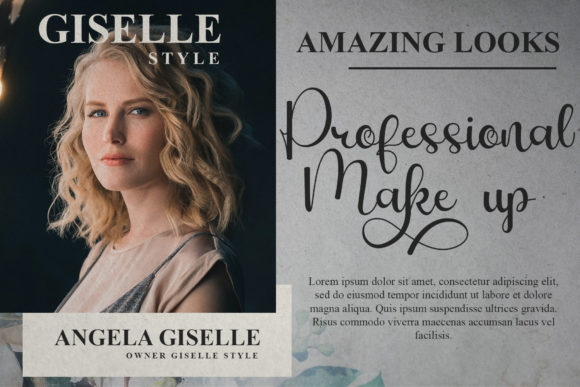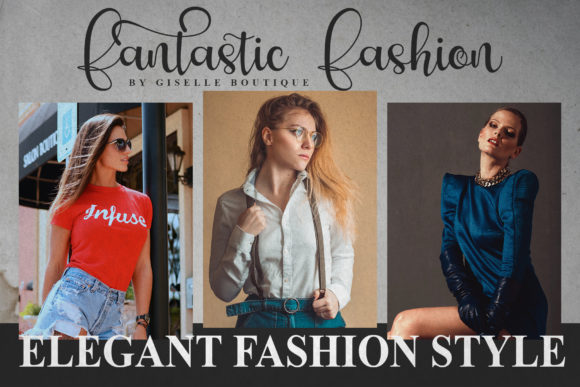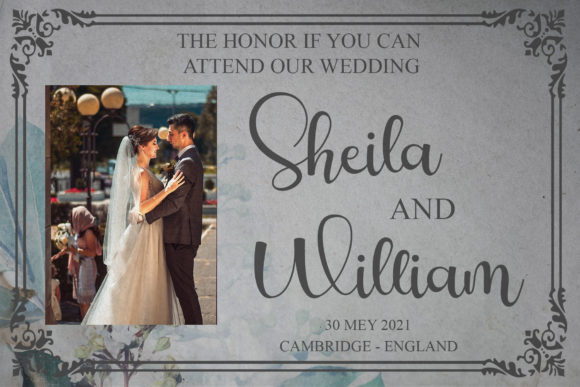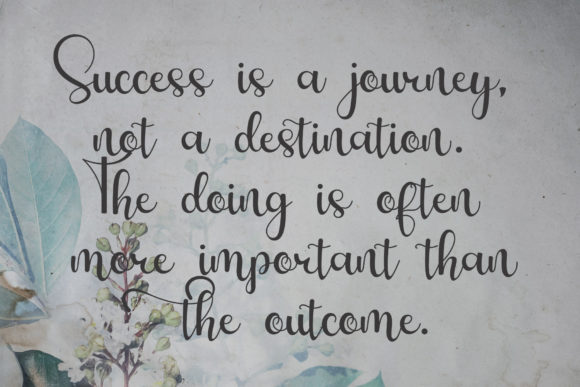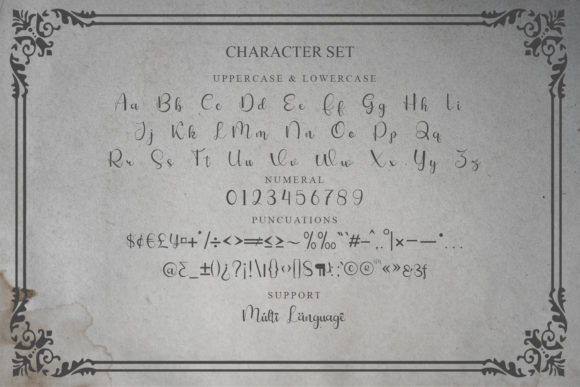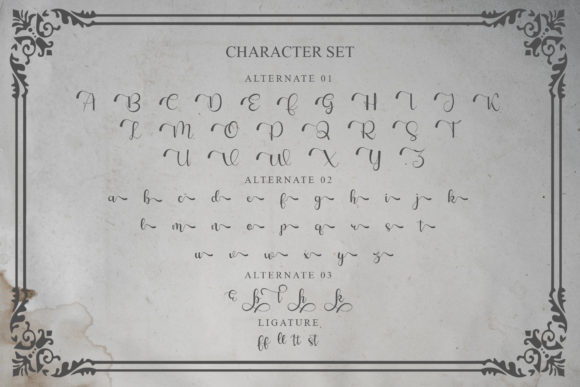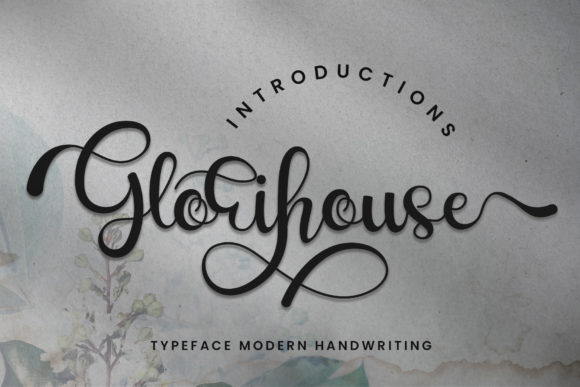
Introducing Glorihouse Font: A Romantic and Sweet Calligraphy Typeface
Are you a designer or crafter looking for a font that adds a touch of elegance and romance to your projects? Look no further than Glorihouse Font, a beautiful calligraphy typeface that is sure to capture the hearts of your audience. In this article, we’ll dive into the features and benefits of Glorihouse Font, and explore how it can elevate your designs to the next level.
What is Glorihouse Font?
Glorihouse Font is a romantic and sweet calligraphy typeface that is designed to add a touch of whimsy and elegance to your projects. The font features characters that dance along the baseline, giving it a casual yet sophisticated feel. With its flowing lines and delicate curves, Glorihouse Font is perfect for creating beautiful wedding invitations, romantic quotes, and other designs that require a touch of romance.
Key Features of Glorihouse Font
- PUA Encoded: Glorihouse Font is PUA (Private Use Area) encoded, which means that you can access all of the glyphs and swashes with ease. This makes it easy to create beautiful and intricate designs without having to worry about complicated font editing.
- Casual yet Elegant: Glorihouse Font has a casual yet elegant touch that makes it perfect for a wide range of design projects. Whether you’re creating a wedding invitation or a social media graphic, this font is sure to add a touch of sophistication.
- Dancing Characters: The characters in Glorihouse Font dance along the baseline, giving it a playful and whimsical feel. This feature adds a touch of personality to your designs and makes them stand out from the crowd.
- Sweet and Romantic: Glorihouse Font is a sweet and romantic calligraphy typeface that is perfect for creating designs that require a touch of love and affection.
Benefits of Using Glorihouse Font
So why should you choose Glorihouse Font for your design projects? Here are just a few benefits of using this beautiful calligraphy typeface:
- Adds Elegance and Sophistication: Glorihouse Font adds a touch of elegance and sophistication to your designs, making them perfect for high-end clients or special occasions.
- Versatile: Glorihouse Font is versatile and can be used for a wide range of design projects, from wedding invitations to social media graphics.
- Easy to Use: Glorihouse Font is PUA encoded, making it easy to access all of the glyphs and swashes. This means that you can focus on creating beautiful designs rather than worrying about complicated font editing.
- Unique and Creative: Glorihouse Font is a unique and creative calligraphy typeface that will add a touch of personality to your designs.
Who Can Benefit from Using Glorihouse Font?
Glorihouse Font is perfect for a wide range of designers and crafters, including:
- Wedding Designers: Wedding designers can use Glorihouse Font to create beautiful wedding invitations, save the dates, and other wedding-related designs.
- Graphic Designers: Graphic designers can use Glorihouse Font to add a touch of elegance and sophistication to their designs, from social media graphics to branding materials.
- Crafters: Crafters can use Glorihouse Font to create beautiful handmade cards, gift tags, and other paper crafts.
- Stationery Designers: Stationery designers can use Glorihouse Font to create beautiful stationery sets, including notecards, journals, and planners.
In conclusion, Glorihouse Font is a beautiful and romantic calligraphy typeface that is perfect for designers and crafters looking to add a touch of elegance and sophistication to their projects. With its casual yet elegant touch, dancing characters, and PUA encoding, Glorihouse Font is a versatile and easy-to-use font that can be used for a wide range of design projects. Whether you’re a wedding designer, graphic designer, crafter, or stationery designer, Glorihouse Font is sure to become a favorite in your design arsenal.